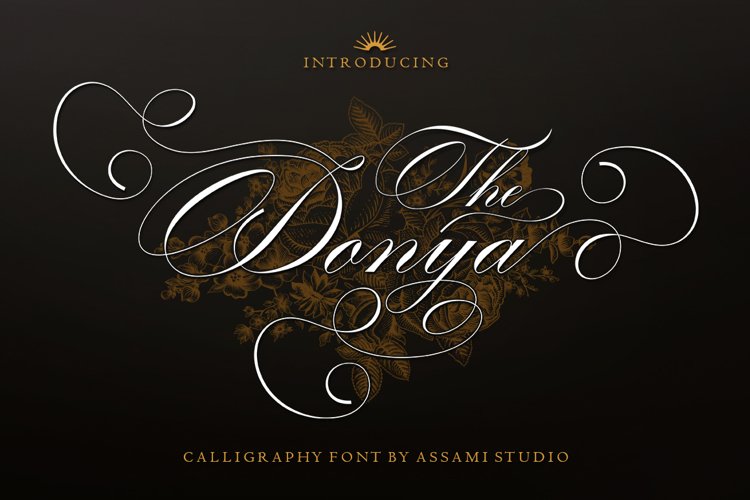
The Donya Script is a romantic calligraphy. Bold, elegant & fun vintage script font. Can be used for various purposes.such as logos, wedding invitation, t-shirt, letterhead, signage, news, posters, badges etc.
The Donya Script features 410+ glyphs and 182 alternate characters, swash, ligatures and multiple language support.